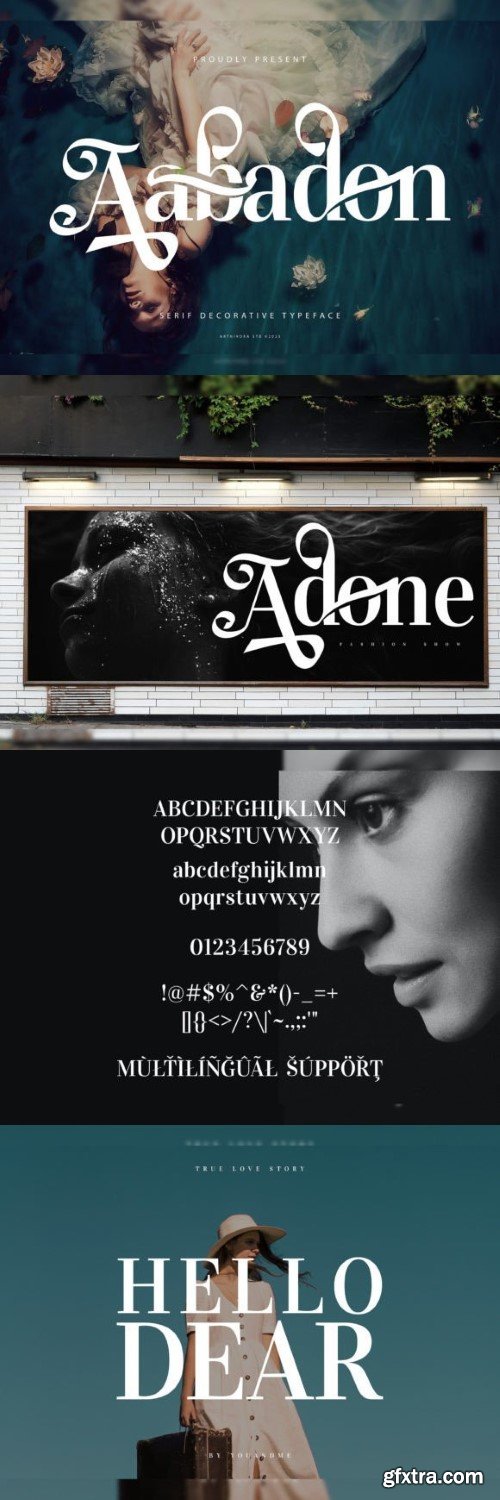
阿卜杜安字体装饰型面
Introducing **Aabadon**, a simple and serif font.
So perfect for you who needs a typeface for logo designs, magazine, social media, brochure, and many more.